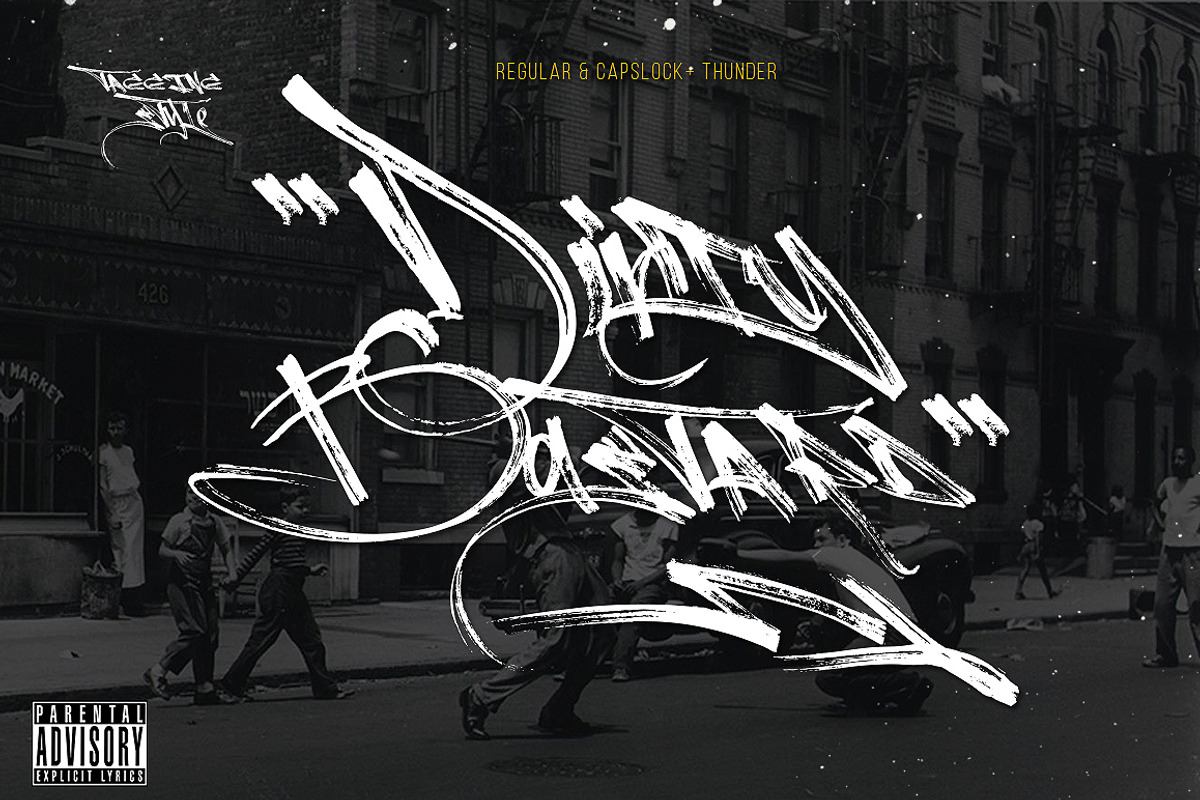
Burnts Marker Font Free Download is a bold and gritty handwritten typeface that mimics the raw texture of a thick marker on paper. With its rough edges, expressive strokes, and urban attitude, this font is perfect for streetwear branding, protest posters, music graphics, and creative projects that need a loud, authentic voice.
The imperfect, hand-drawn style gives it a rebellious and energetic vibe—making it ideal for headlines, logos, social media posts, or any design that demands attention. Burnts Marker adds personality and punch with every letter.